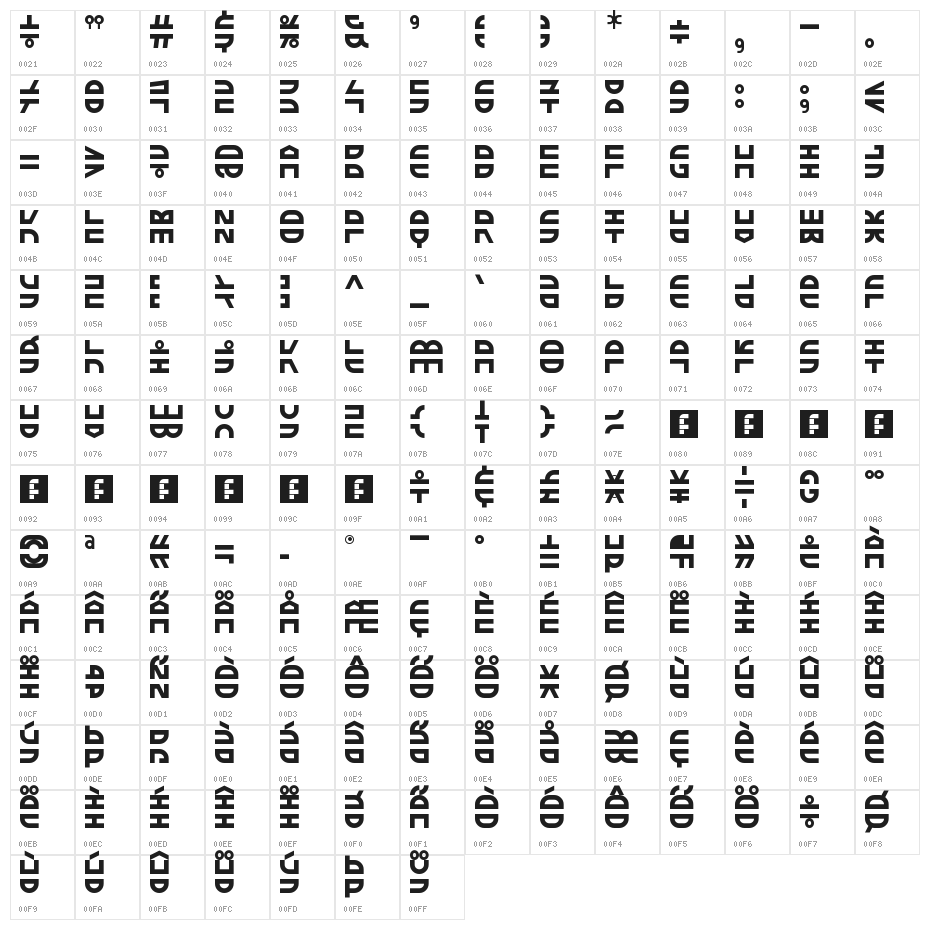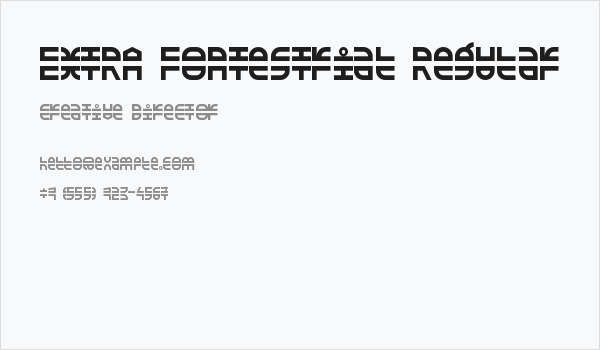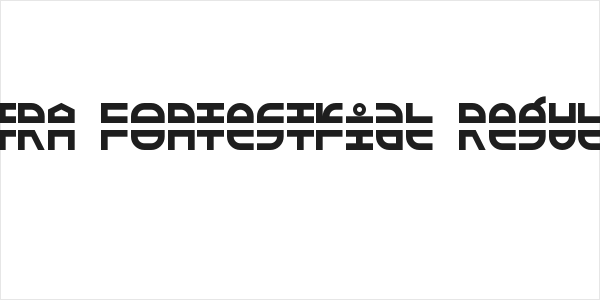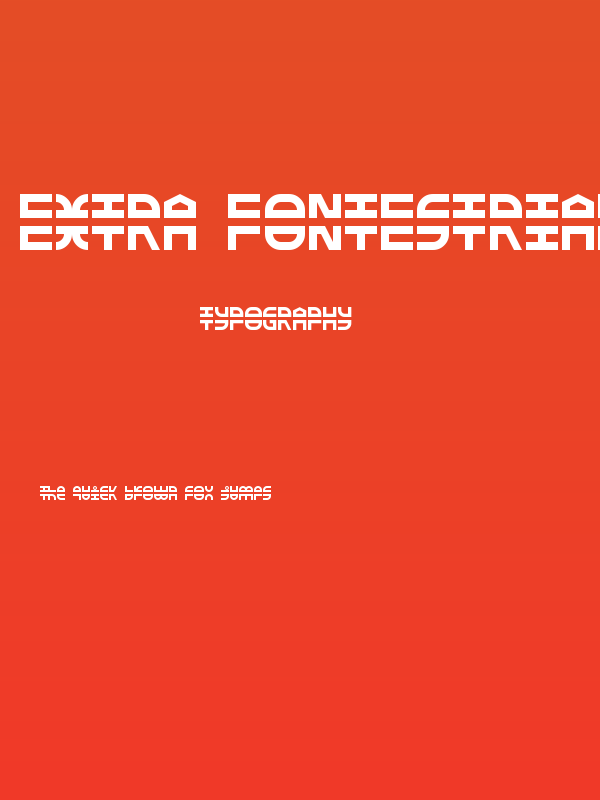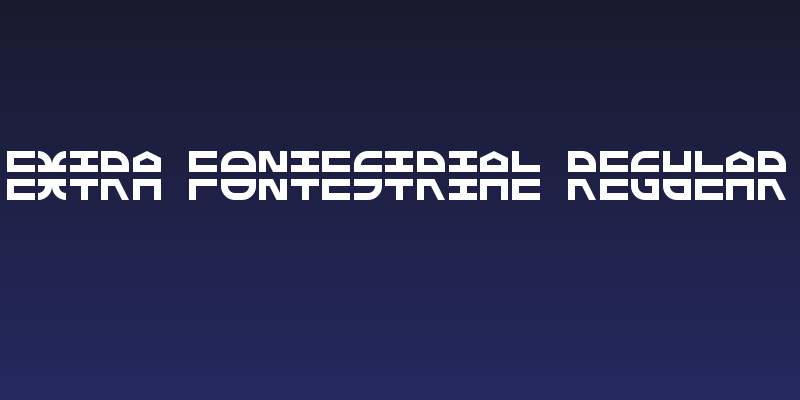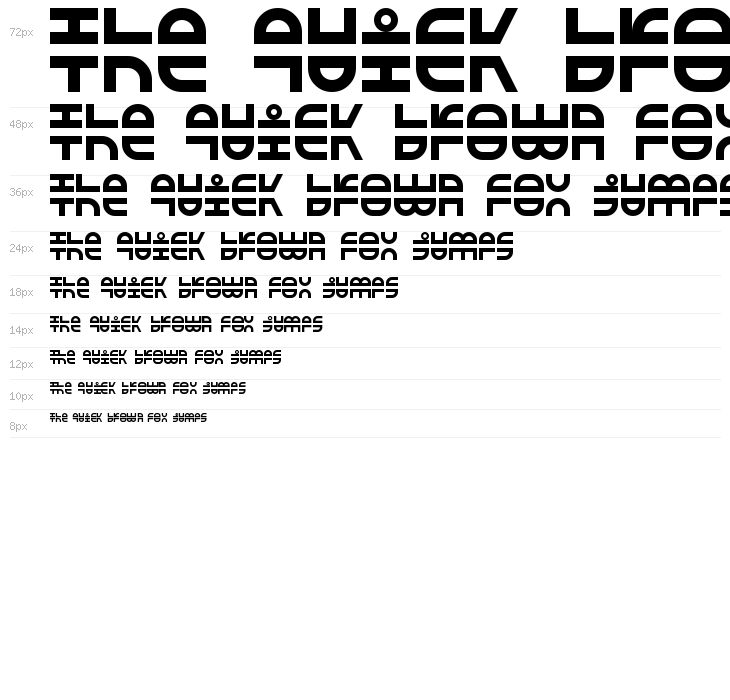
EXTRA Fontestrial Regular Font
EXTRA Fontestrial Regular Description
This font exhibits a futuristic and geometric design, characterized by its bold and blocky letterforms. The characters are constructed with thick, uniform strokes, creating a strong visual impact. The design incorporates unique shapes and angles, giving it a distinct and modern appearance. The uppercase and lowercase letters maintain a consistent style, with rounded edges and a symmetrical structure. The numerals and special characters follow the same design principles, ensuring a cohesive look across all elements. This font's boldness and geometric style make it suitable for projects that require a contemporary and eye-catching aesthetic.
| Proposed Projects | Ideal for sci-fi themed designs, technology branding, posters, and digital media. |